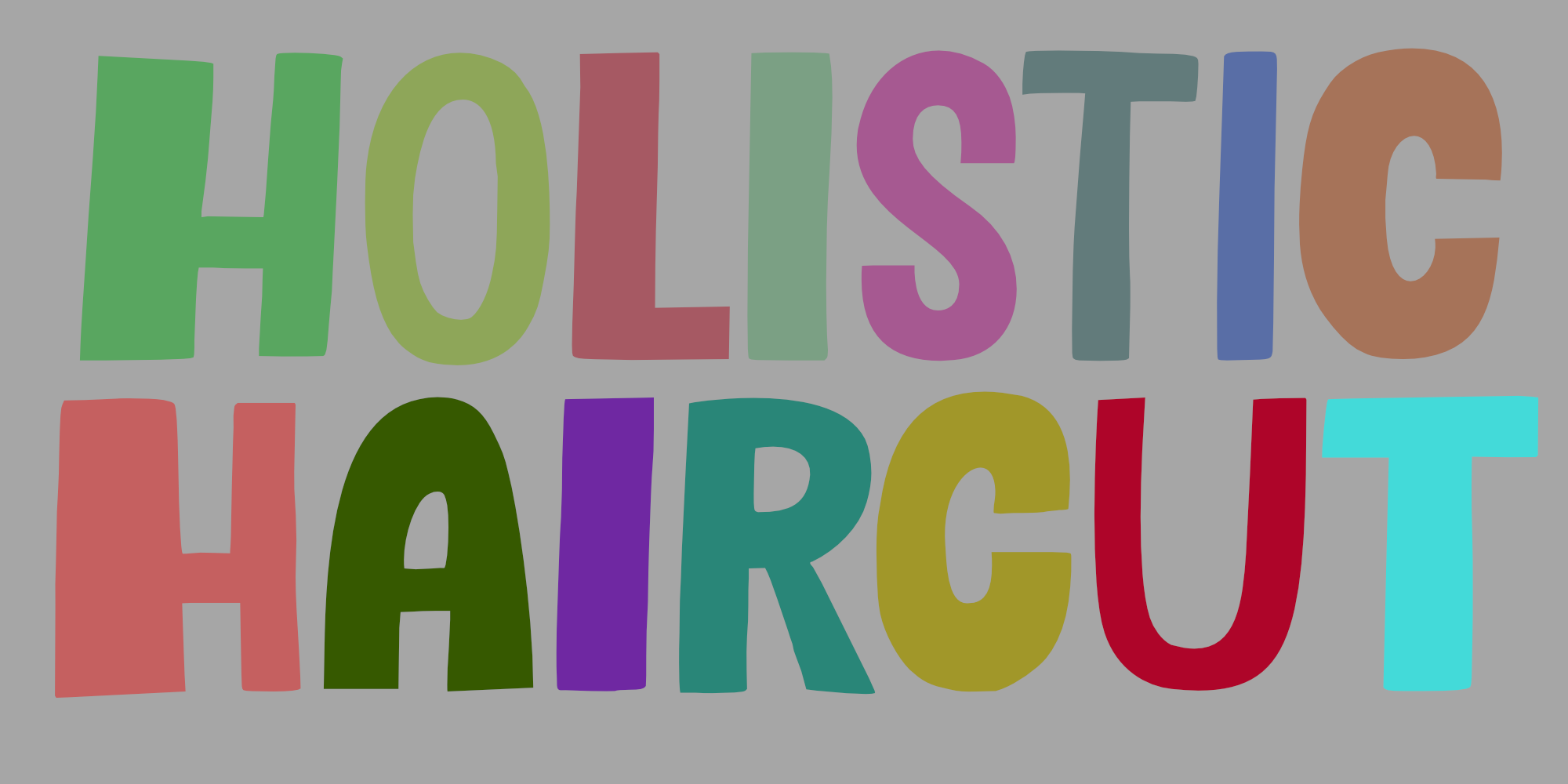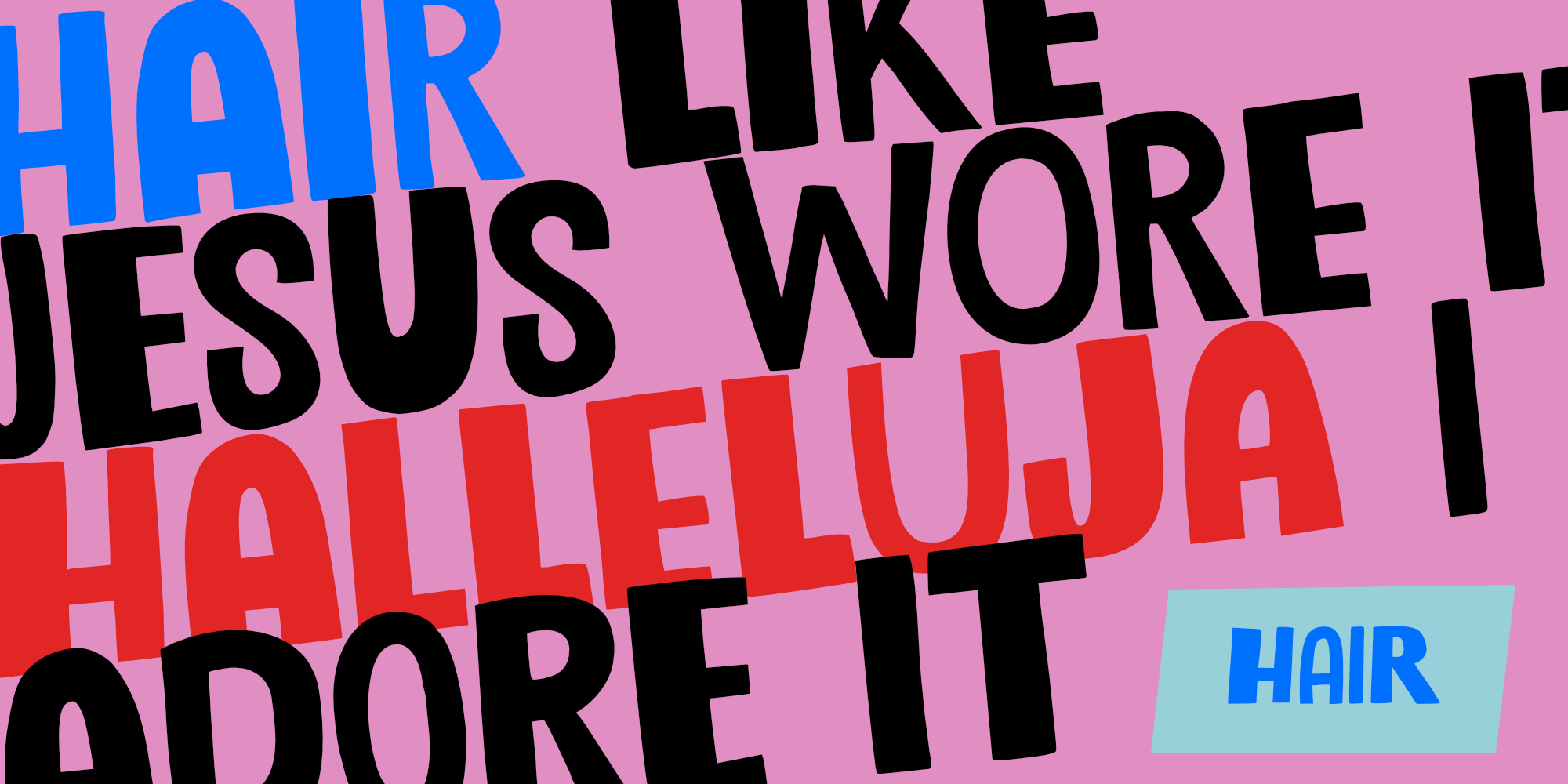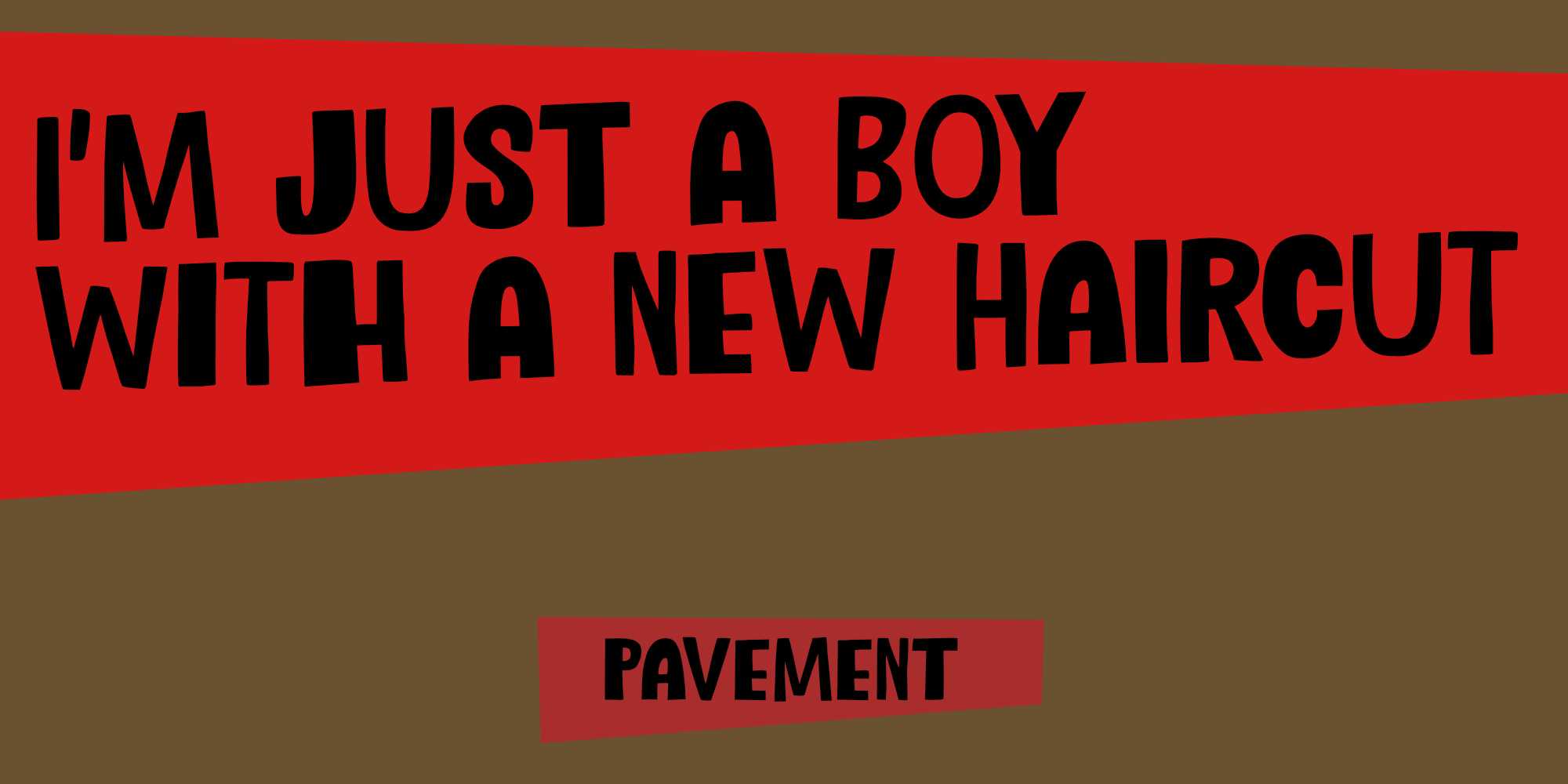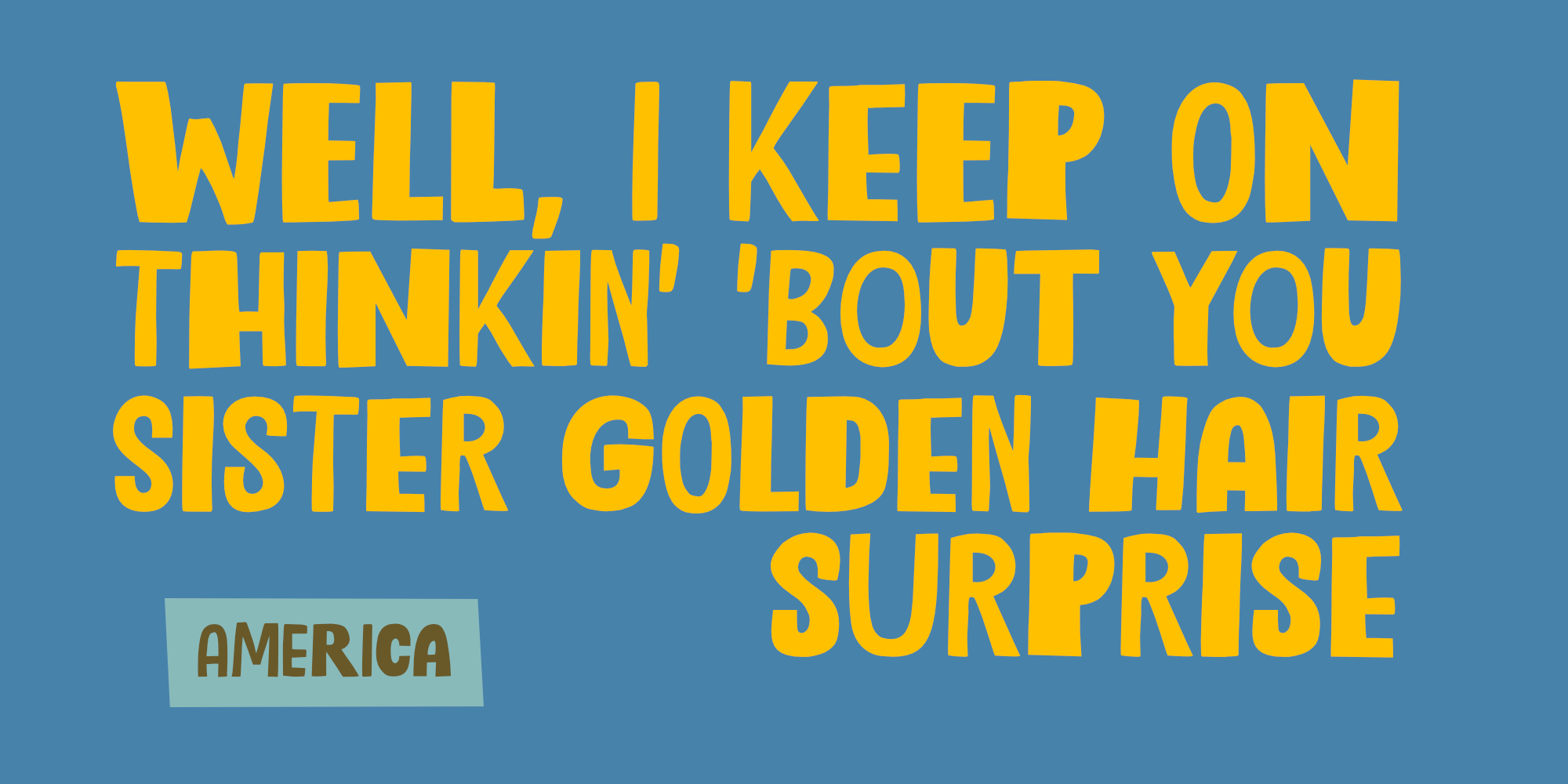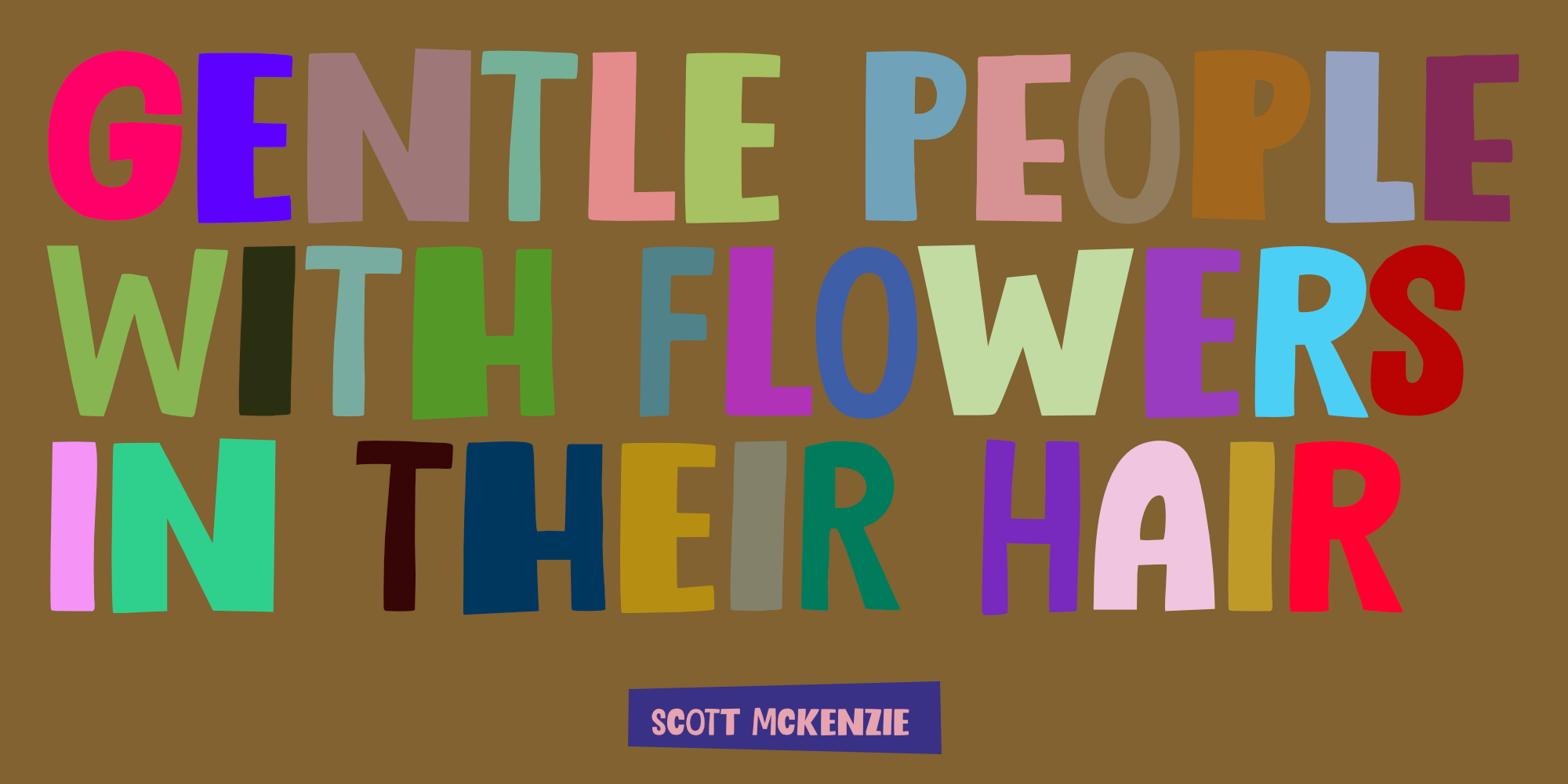
Holistic Haircut (2 fonts)
Holistic Haircut is a nice, handmade display font. It comes with wider and narrower glyphs for the upper and lower case AND a set of alternates that likes to party with the rest.